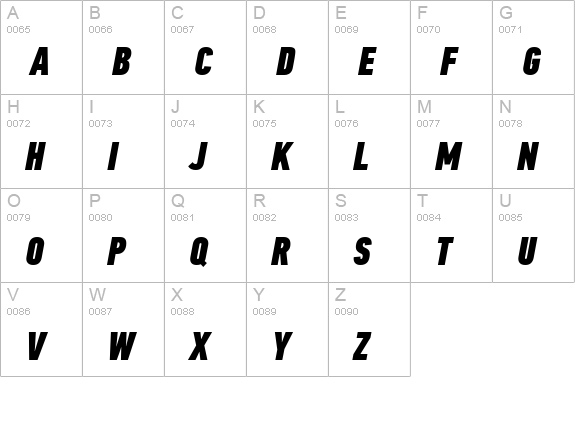
PFDinTextCompPro-XBlackItalic Font Details
PFDinTextCompPro-XBlackItalic font is a striking and bold typeface that exudes elegance and sophistication. Its sleek design and sharp angles make it perfect for adding a touch of modernity to any project. With its italicized style, this font commands attention and conveys a sense of power and authority. What sets PFDinTextCompPro-XBlackItalic font apart is that it is available for free download at FontsMarket.com. This means that you can easily access this stunning typeface without any cost, making it a valuable addition to your design arsenal. Whether you're looking to make a statement with your branding or elevate your typography game, PFDinTextCompPro-XBlackItalic font is the perfect choice for all your design needs. Download this font today and unleash its bold and captivating style in your projects.